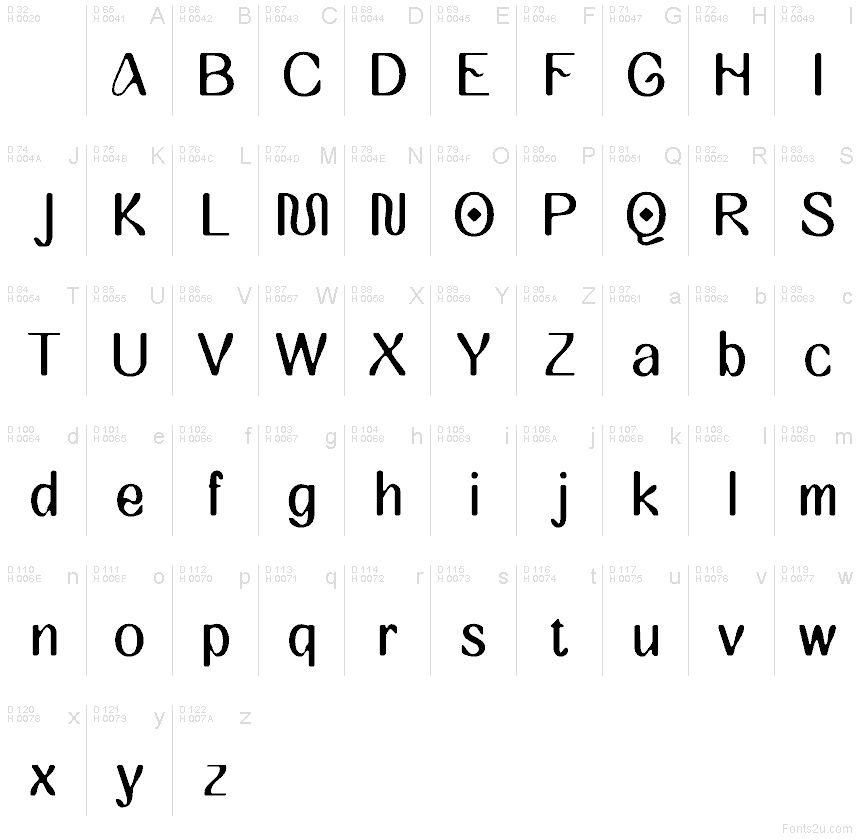
QuencyBlur-Regular Demo
Quency Blur font by Craft Supply Co. is a vintage display font with a decorative and stylish design. This free typeface might have some recognizable elements from some of the more famous fonts, but at the same time showcases new elements that make it unique. As a whole, it feels approachable, intoxicating, and friendly.